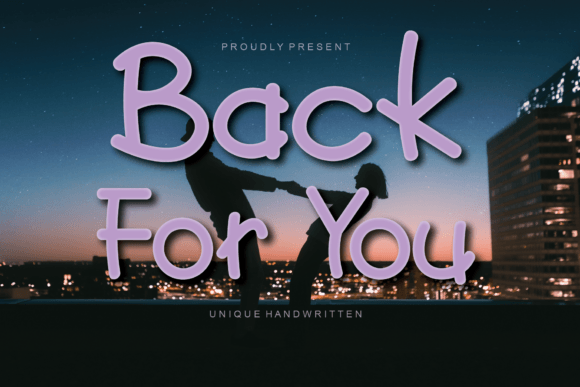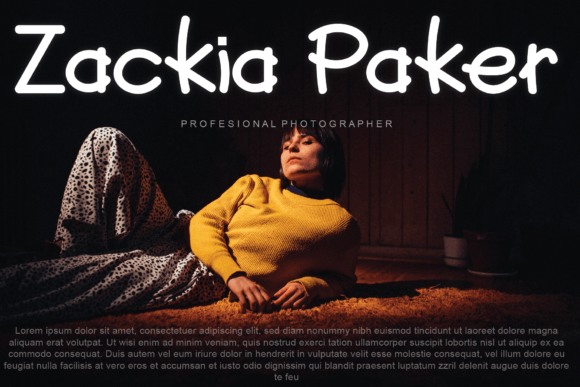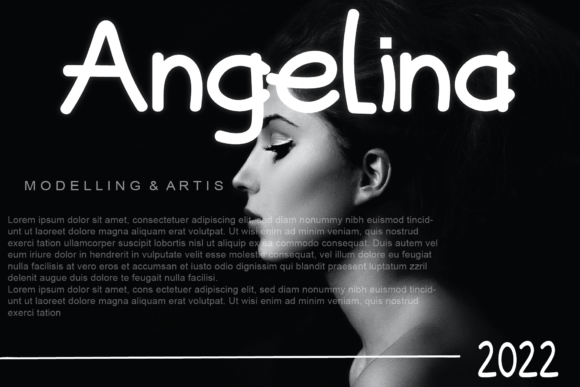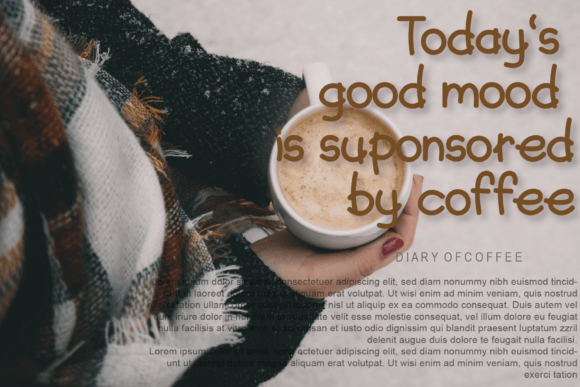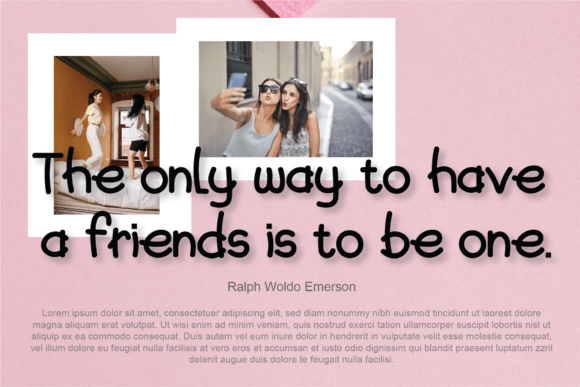
Back for You Font
About Back For You Font
Back For You Font is a cute handwritten script that combines simplicity with a modern aesthetic. With smooth strokes and cheerful energy, this typeface brings warmth and positivity to both personal and professional projects. Because of its versatile style, Back For You Font is perfect for greeting cards, business cards, logos, packaging, and branding.
A Cute Handwritten Typeface with a Modern Feel
Handwritten fonts naturally bring charm and uniqueness to creative work, and Back For You Font elevates this quality with a clean, modern touch. Its playful strokes maintain readability, while its balanced design adapts beautifully to both fun and formal layouts. Moreover, its cheerful look ensures designs feel lively and engaging. As a result, this typeface is an excellent choice for designers who want approachable elegance.
Perfect Typeface for Greeting Cards and Invitations
For stationery and personal projects, Back For You Font is an ideal companion. For example, it can transform a simple thank-you card into a heartfelt keepsake. In addition, it works wonderfully for birthday greetings, wedding invitations, and seasonal notes. Because of its sweet and casual strokes, every design feels more personal, joyful, and stylish.
A Script Typeface for Logos and Branding
Businesses and creatives who want to present a friendly and approachable identity can rely on Back For You Font. Logos, labels, and packaging gain charm and individuality with this handwritten script. Furthermore, on social media, it enhances posts, banners, and promotional graphics with warmth and originality. When paired with clean sans serif fonts, Back For You Font achieves balance between professionalism and creativity.
Another strength of Back For You Font is its adaptability across platforms. In print, it shines on posters, magazines, brochures, and merchandise. Digitally, it elevates websites, blogs, and presentations with a stylish handwritten appeal. Since it scales clearly in both small and large sizes, this typeface remains dependable for diverse creative projects.